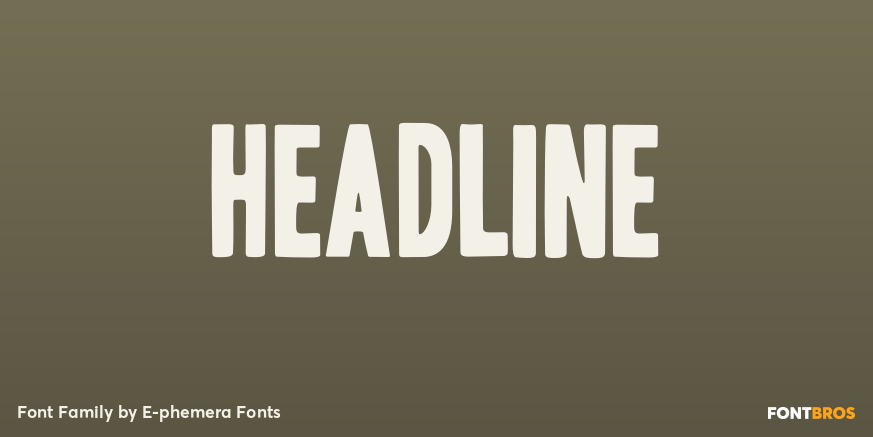
Headline
About Headline
Headline One was developed from 1920s editions of the Toronto Star newspaper in the archives of a Hollywood prop rental house. Headline Two was developed from 1930s editions of the Los Angeles Herald Examiner from the same archive. Both feature robust…